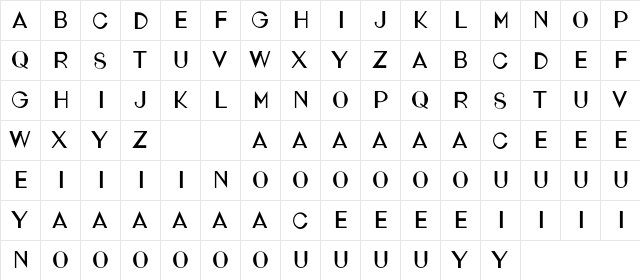
ALPHINANDHITA Regular Font Preview
ALPHINANDHITA Regular
ALPHINANDHITA Regular Font Details
Design Context for ALPHINANDHITA Typeface
ALPHINANDHITA offers clean, dependable letterforms without strong stylistic allegiance, making it a practical choice for designers who need flexibility.